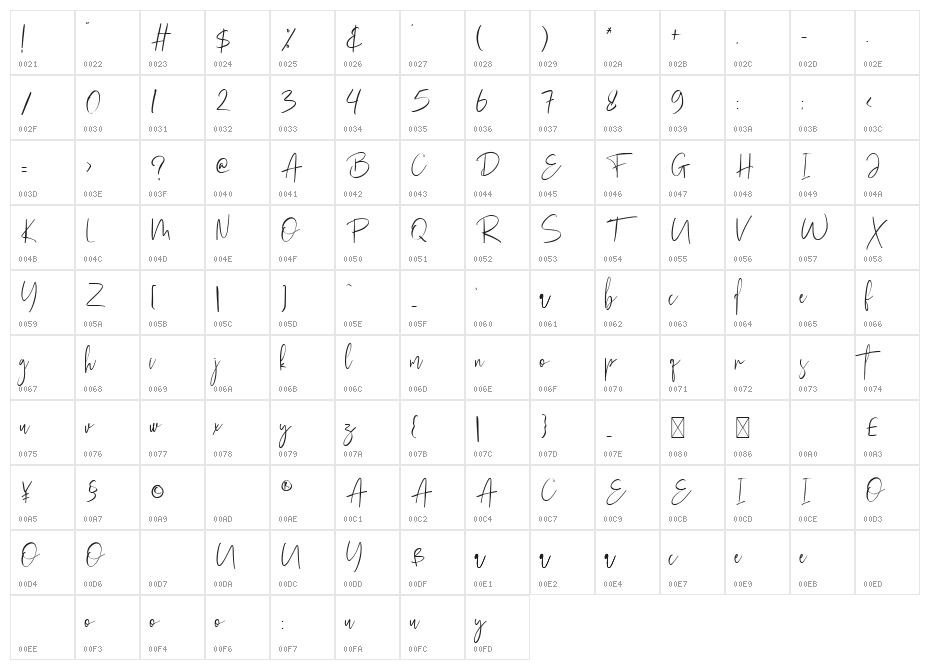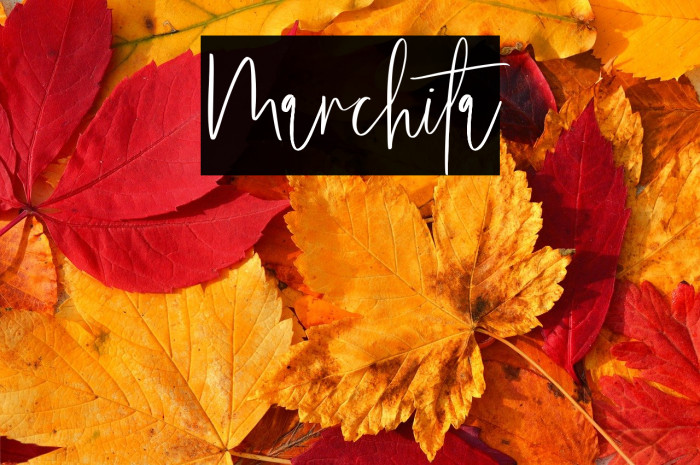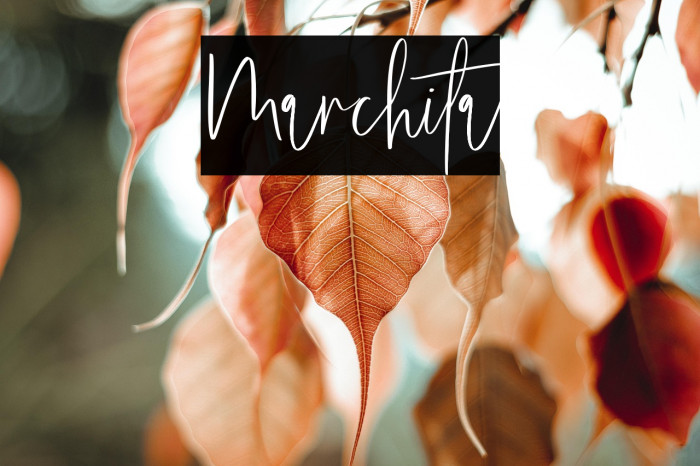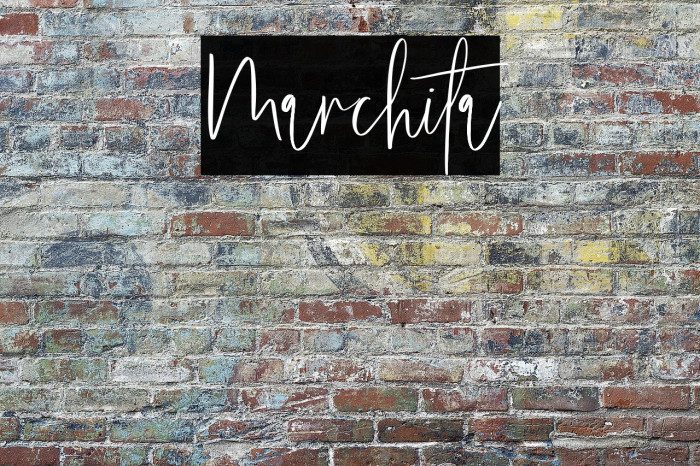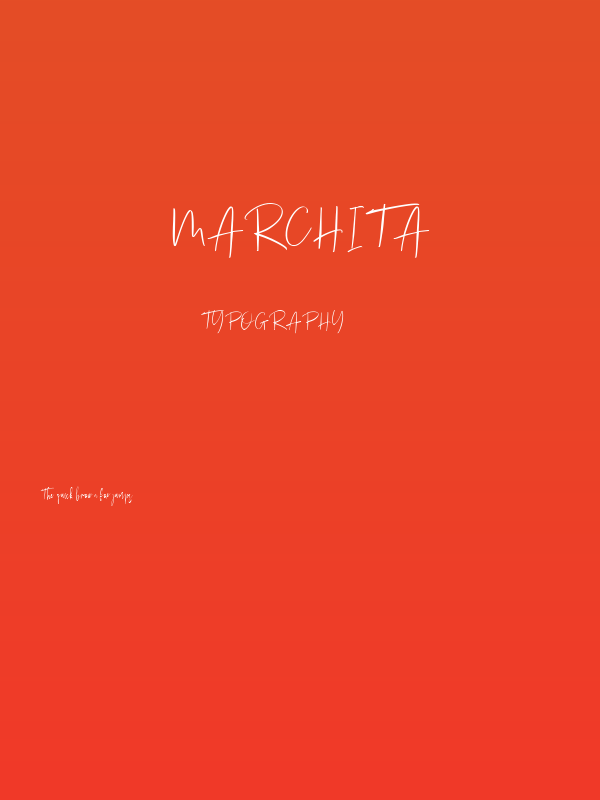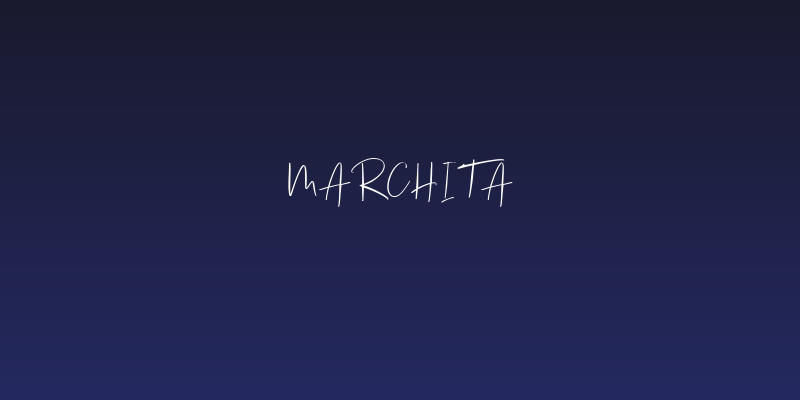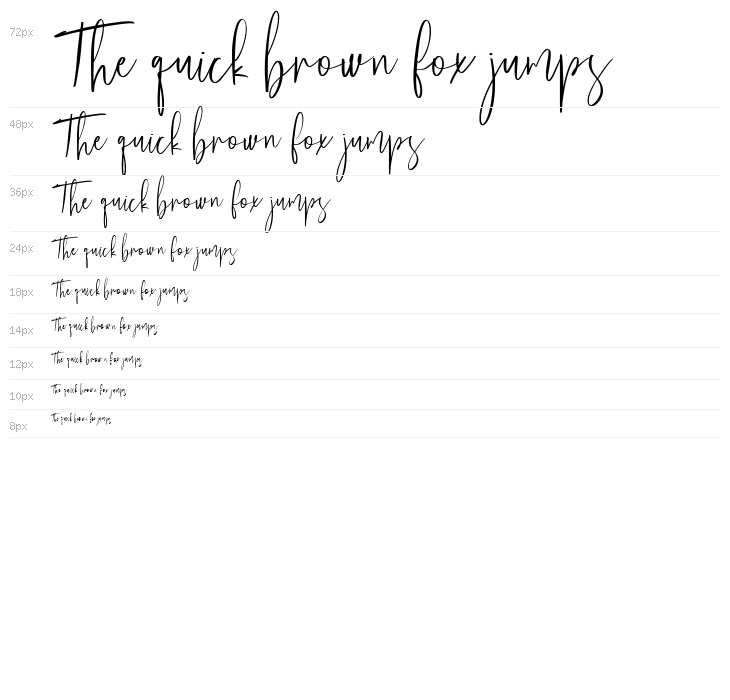
Marchita Font
Marchita Description
This font features a lively and expressive handwritten style, characterized by its fluid and dynamic strokes. The uppercase letters are tall and slightly narrow, with a playful yet elegant flair. The lowercase letters exhibit a more cursive nature, with smooth connections and varying stroke widths that add to its charm. The numerals are consistent with the overall style, maintaining the same lively and informal feel. Special characters are designed to complement the alphabet, ensuring a cohesive look across all text. This font's unique personality makes it suitable for projects that require a personal touch.